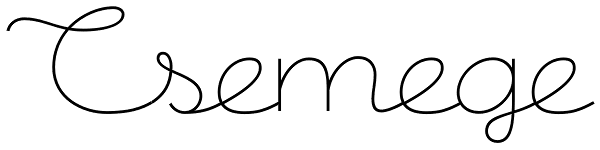
Csemege
Csemege is a fully cursive even script inspired by Hungary's 60' 70's shop signages of mostly food and grocery stores and restaurants, and their neon light scripts. Csemege means Delicatessen in Hungarian. I have developed this set of characters...